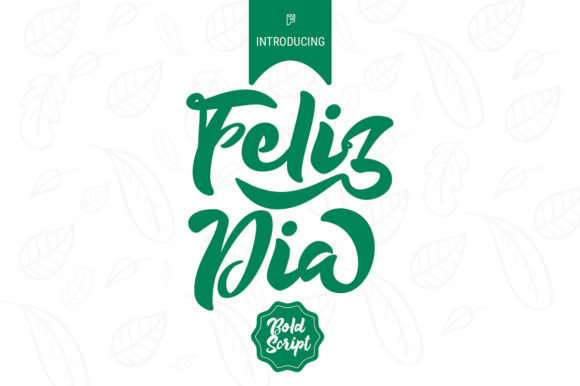
Introducing Feliz Dia Font - A Handcrafted Script Font for Artistic Expression
In a world where words dance and emotions flow, allow us to present Feliz Dia Font, a script font that will ignite your creativity and transport you to a realm of endless artistic possibilities. This exquisite font, meticulously crafted by FontCastle, is a symphony of elegance and grace, inviting you to paint your thoughts and ideas with a touch of artistry.
Step into the enchanting world of Feliz Dia, where letters intertwine harmoniously, like delicate vines adorned with dew drops. Each glyph is a testament to the beauty of handwritten words, flowing seamlessly from one to another, creating a visual masterpiece that captivates the senses.
Unlock the boundless potential of Feliz Dia and unleash your imagination. Whether you're designing greeting cards that evoke heartfelt emotions, crafting headlines that command attention, or simply seeking to add a touch of romance to your creative projects, this font is your perfect companion.
With its wide spectrum of applications, Feliz Dia effortlessly adapts to your creative vision. Let it guide you as you create enchanting wall art that transforms your living space into a gallery of emotions. Dive into the world of branding and packaging design, where Feliz Dia's elegant curves and playful flourishes will make your products stand out from the crowd.
But Feliz Dia's versatility doesn't end there. It's an exceptional choice for crafting invitations that promise unforgettable events, websites that exude sophistication, and social media posts that ignite conversations. Let Feliz Dia be your muse as you weave tales through captivating typography, captivating your audience with every word.
Immerse yourself in the artistry of Feliz Dia and discover a font that's more than just a collection of letters. It's an invitation to express yourself authentically, to embrace the beauty of handwritten words, and to create designs that resonate with your soul.